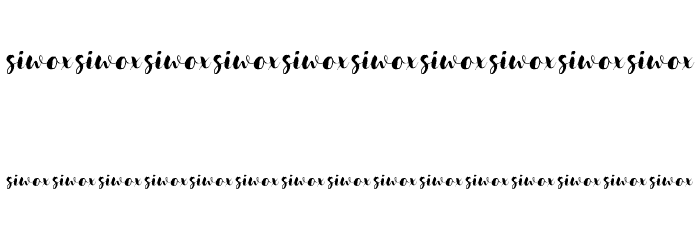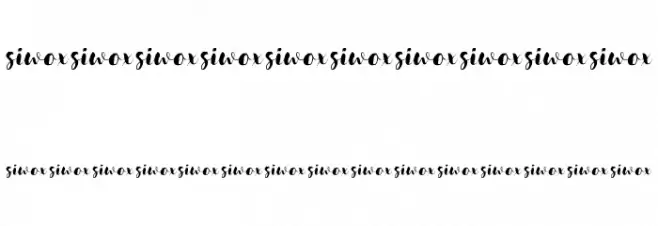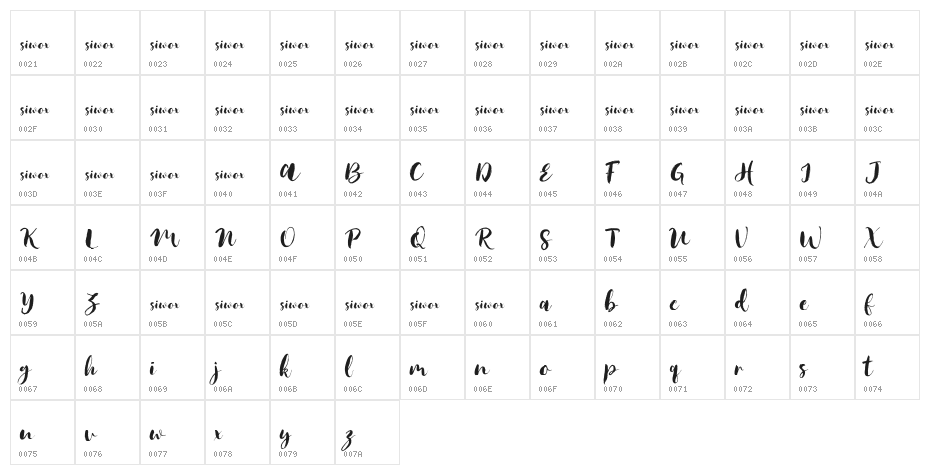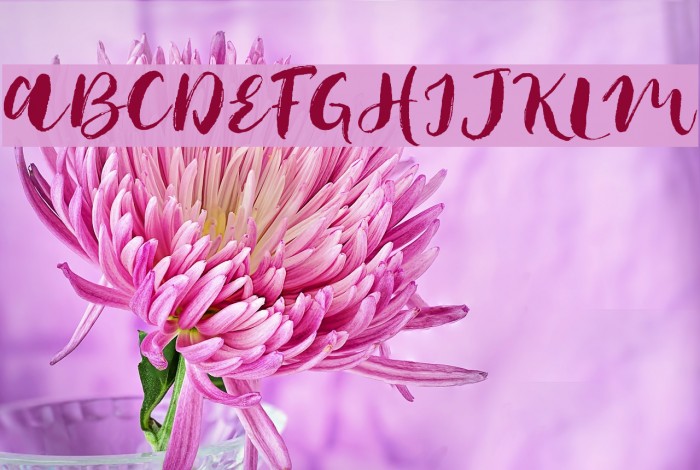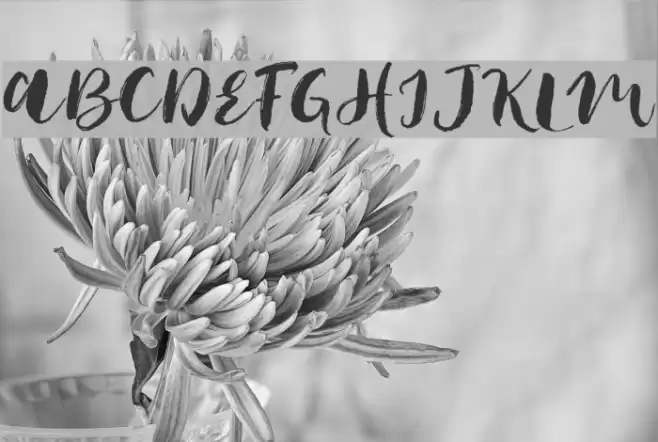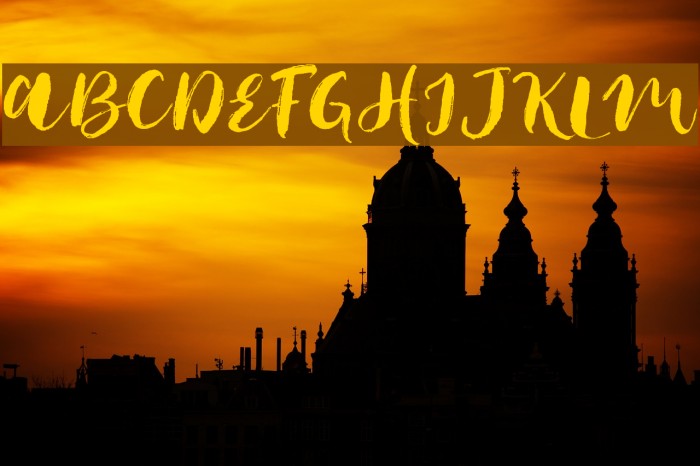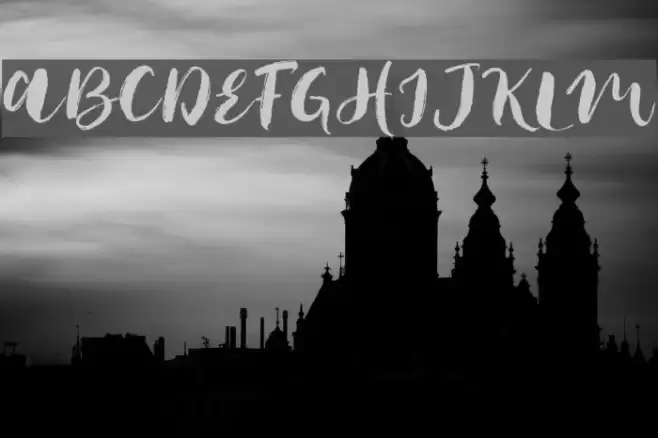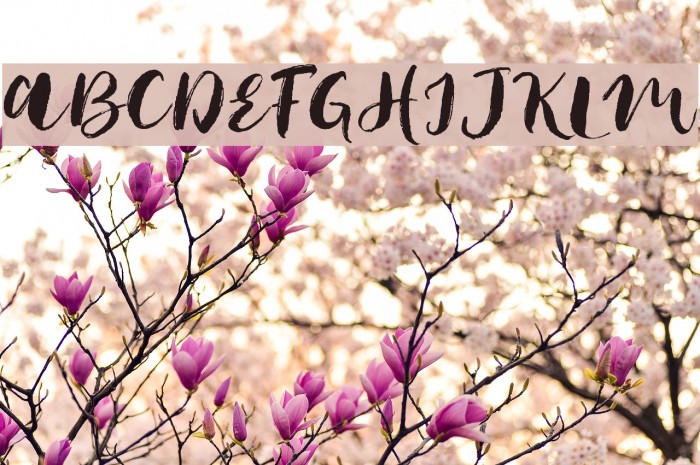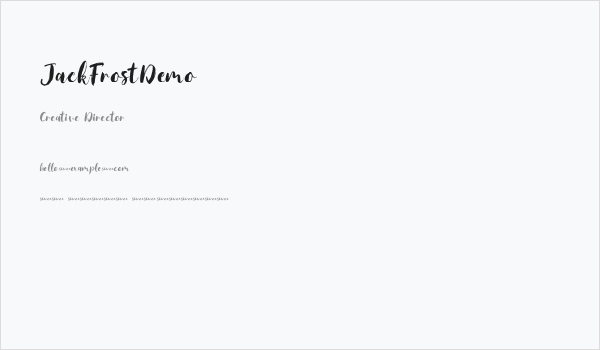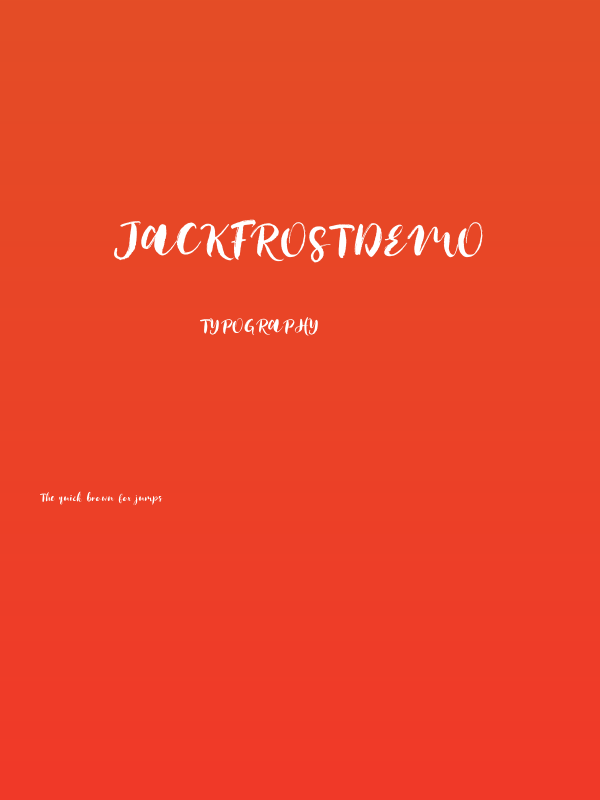
JackFrostDemo Font
JackFrostDemo Description
This font features a bold and expressive script style, characterized by its fluid and dynamic strokes. The letters exhibit a hand-drawn quality, with varying thickness that adds a sense of movement and energy. The uppercase letters are particularly striking, with sweeping curves and flourishes that give them a dramatic appearance. The lowercase letters maintain a consistent style, complementing the uppercase with their own elegant loops and swashes. The overall design is both artistic and legible, making it suitable for creative projects that require a personal touch.
| Proposed Projects | Ideal for wedding invitations, branding, greeting cards, and artistic posters. |